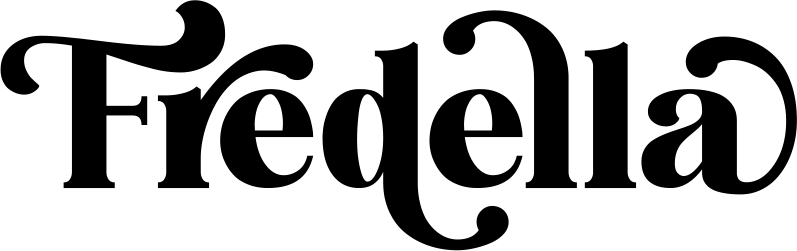
Fredella Font
In this post, we are introducing an eye-catching serif font. Fredella has a luxury, playful, and fun feeling to it and every character in it has a curly and bold design. You can use it for native festival names and posters, sales, event, and party flyers, and fashion banners.